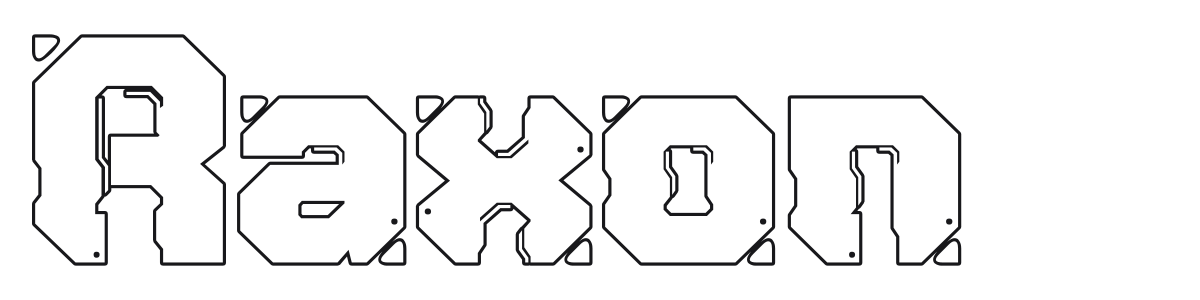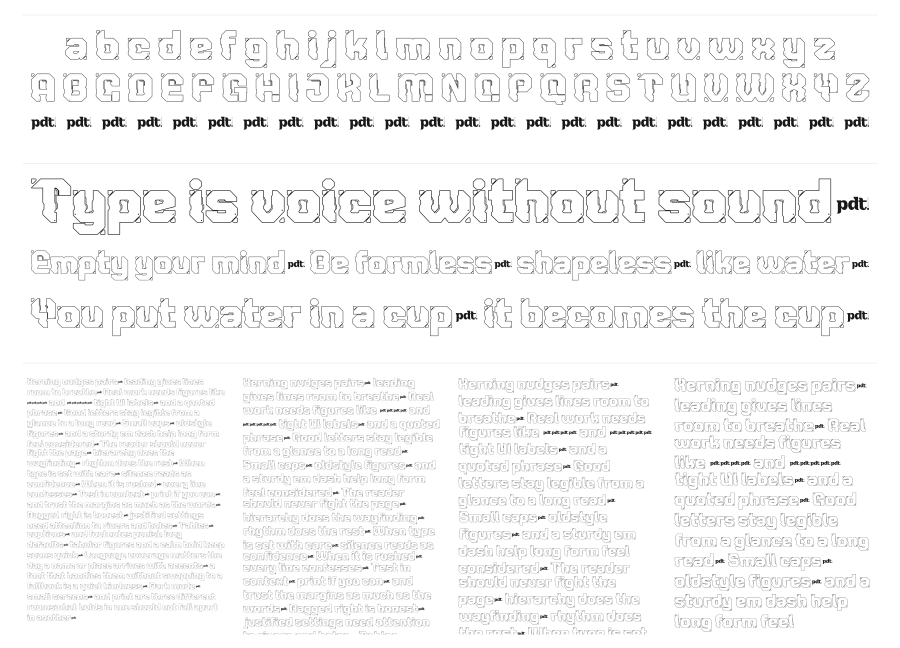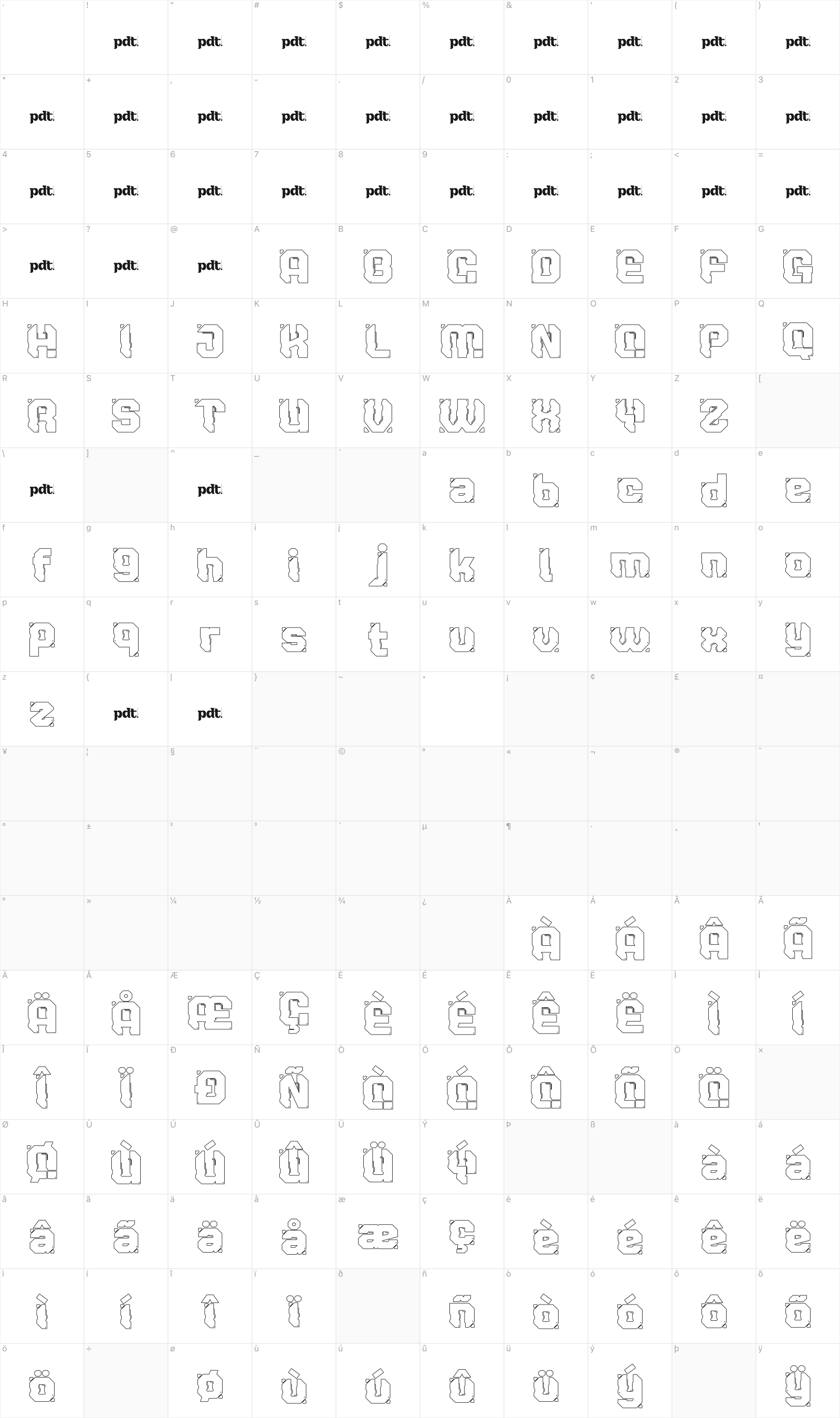
Raxon
Raxon is a wide, bold outline typeface with a strong sci-fi and cyberpunk identity. Its chunky characters are built with squared rounded corners and subtle segmented notches that suggest circuit boards and mechanical interfaces. A natural choice for gaming titles, tech branding, and any project that needs to feel like it belongs to the future.